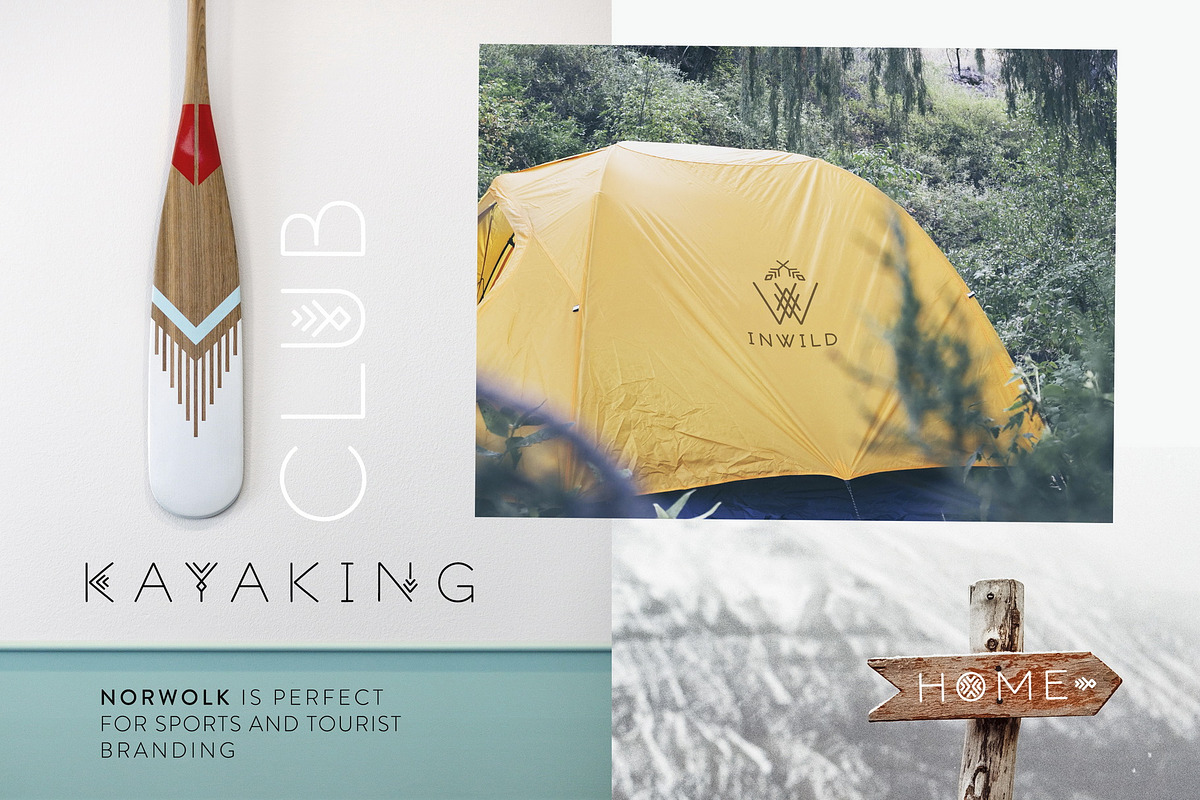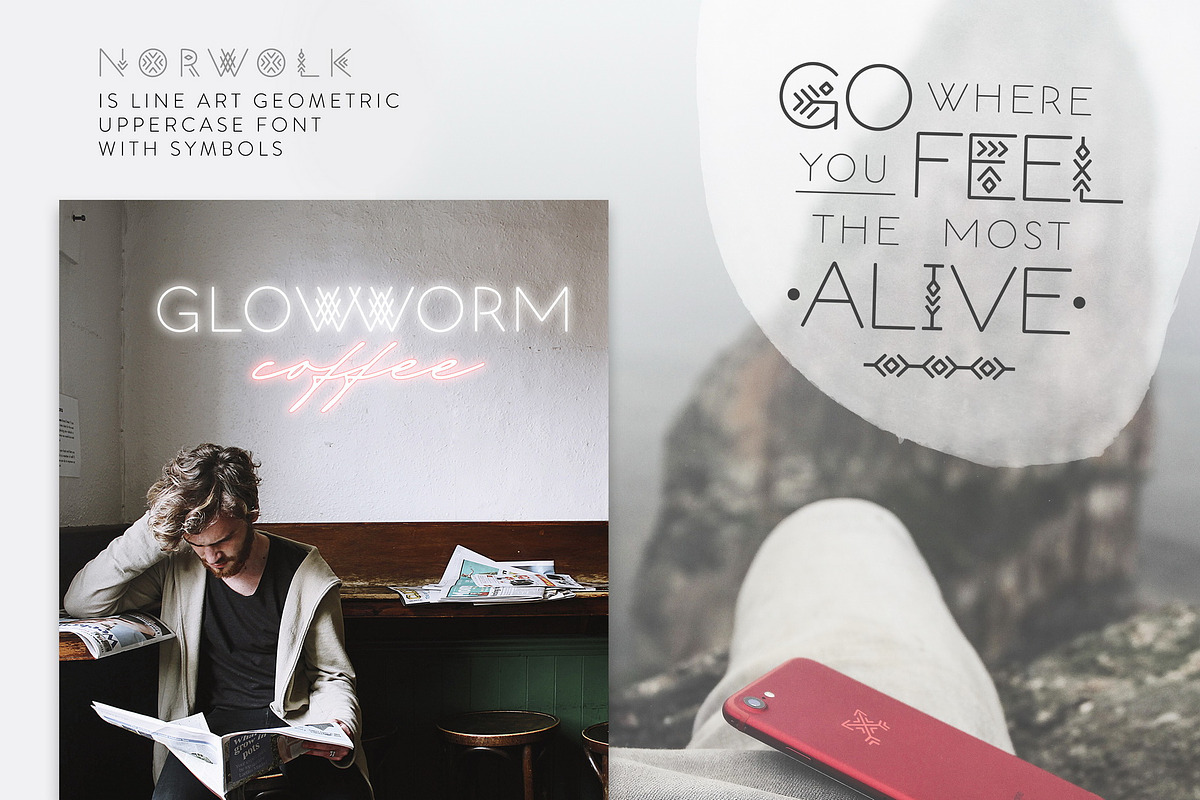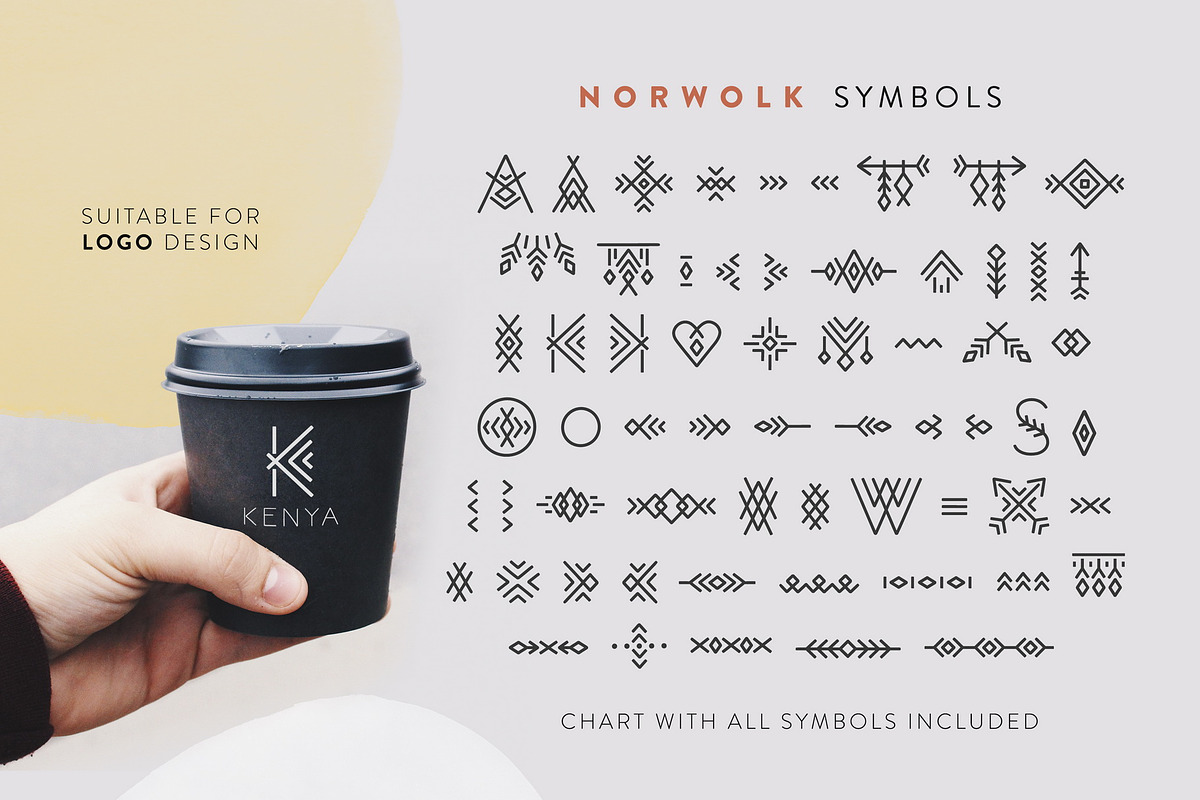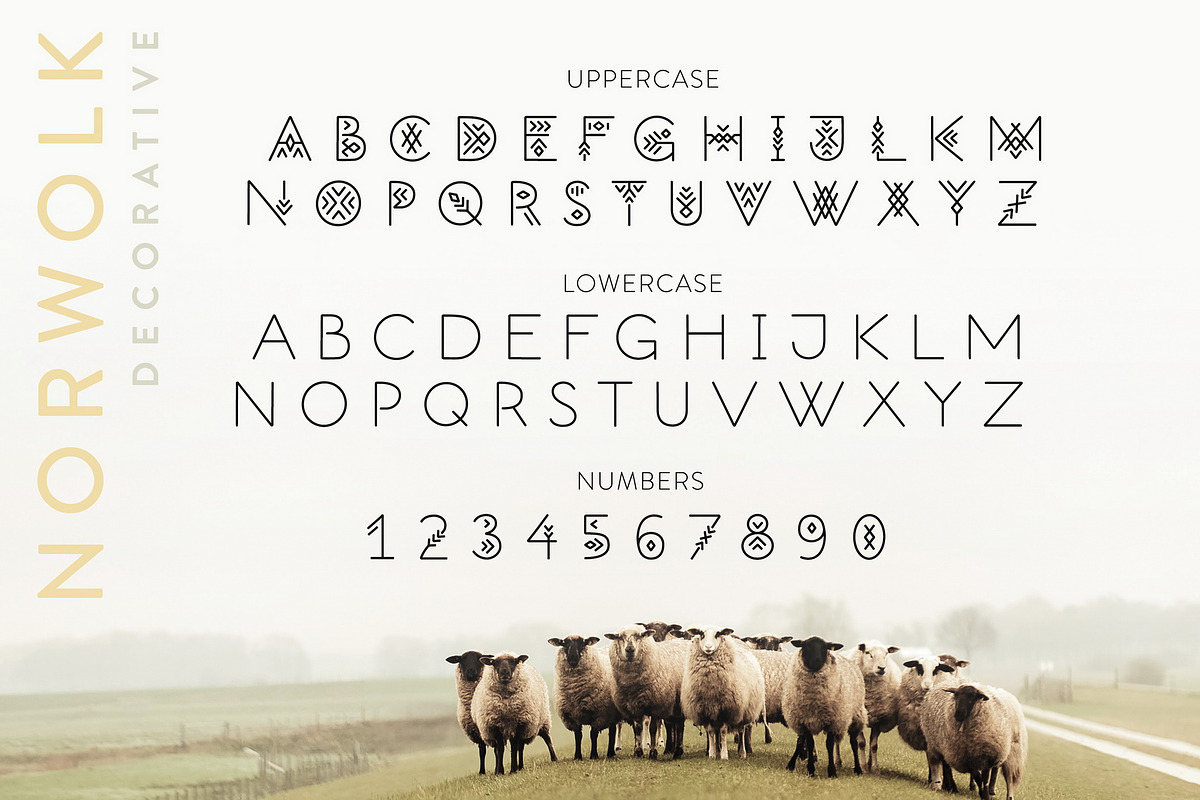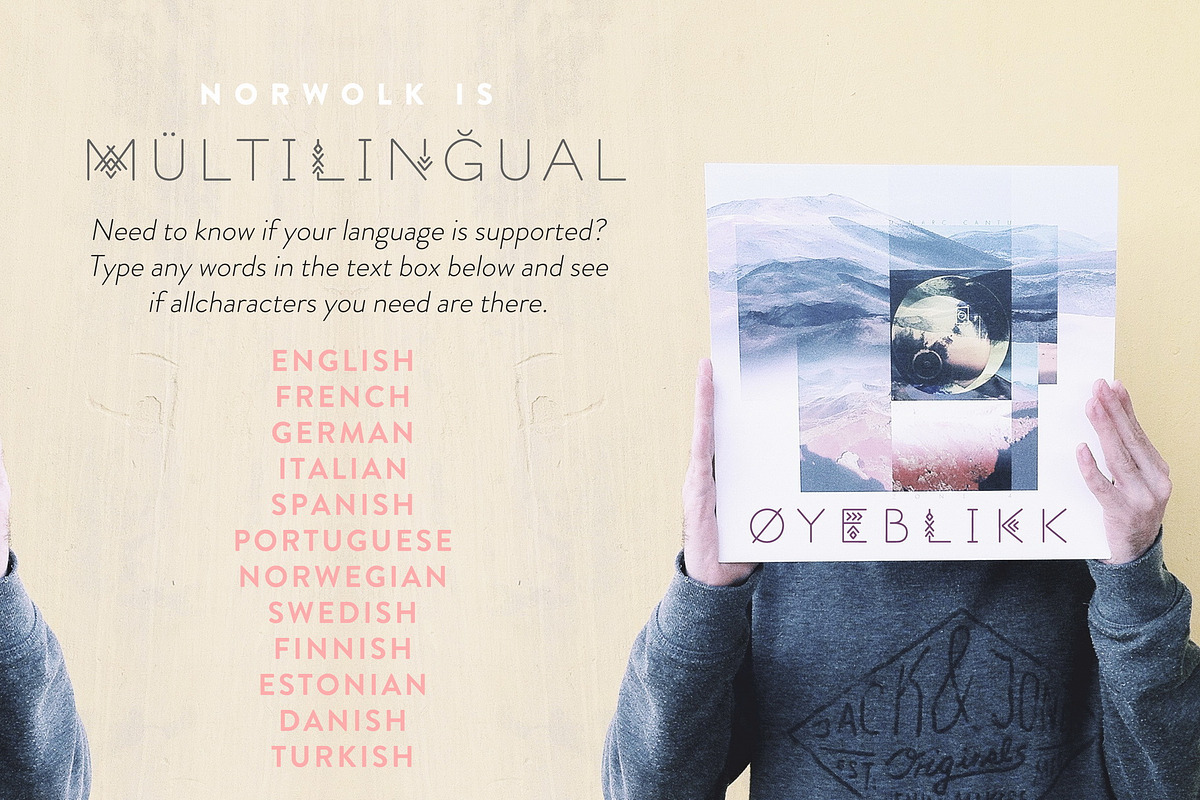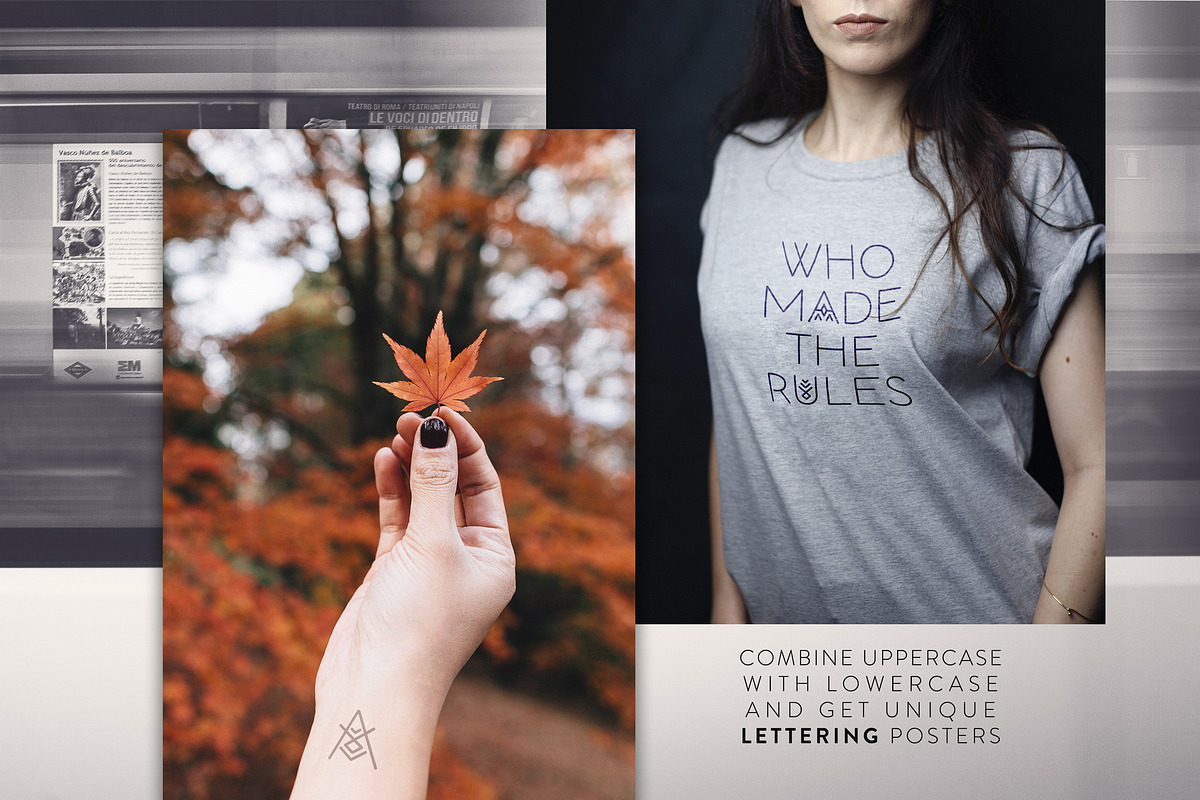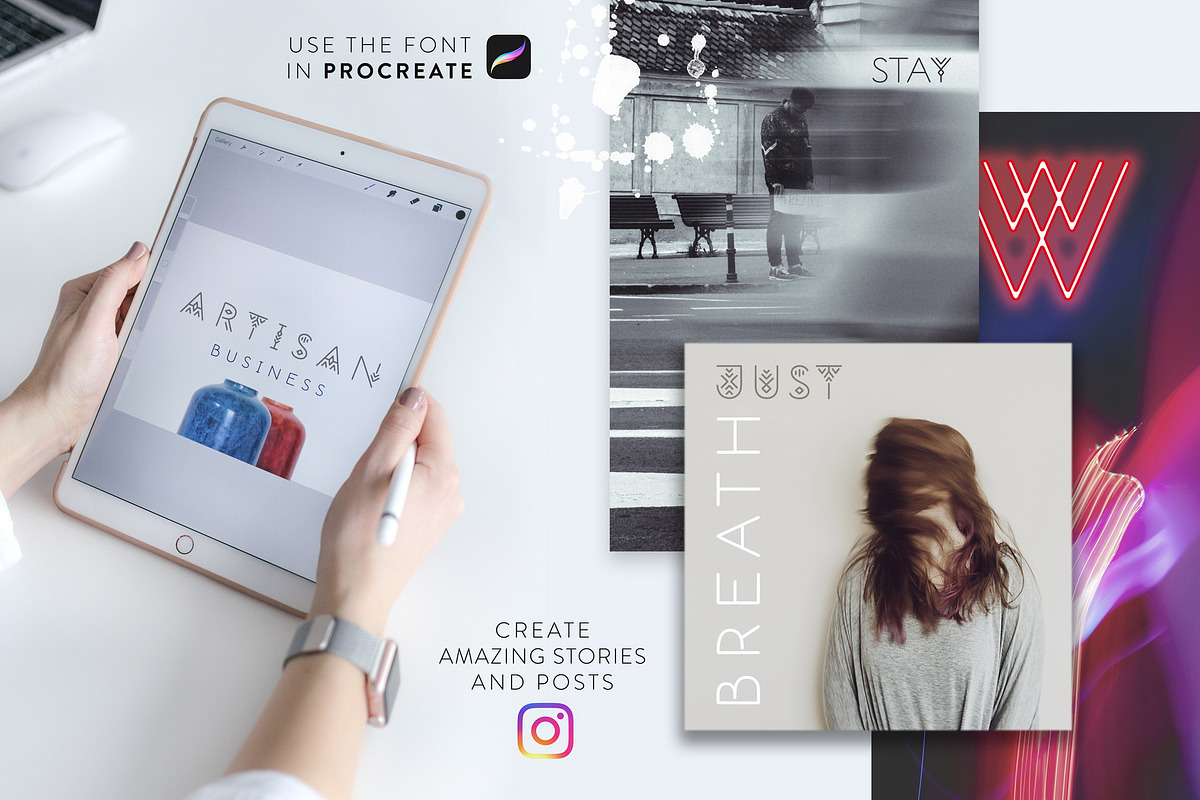
Norwolk - Thin Line Decorative Font
I would like to introduce my new product NORWOLK Thin Line Decorative Font. Norwolk is a linear font in folk style, uppercase is decorated with geometric elements. The typeface includes Decorative and Symbol versions. Letters and symbols are perfectly combined with each other. The font is easy to use in various design programs or without any program.
Norwolk Typeface is suitable for lettering posters, music albums, tattoos and photo overlays in hipster style. The font is also suitable for sports and tourist design and city identity. The font works great both for printing clothes and craft products branding and packaging. Also use individual letters and symbols to create logos and monograms.
The font has extensive language support, it includes English, French, German, Italian, Spanish, Portuguese, Danish, Norwegian, Swedish, Finnish, Estonian, Turkish. Need to know if your language is supported? Type any words in the text box below and see if all characters you need are there.